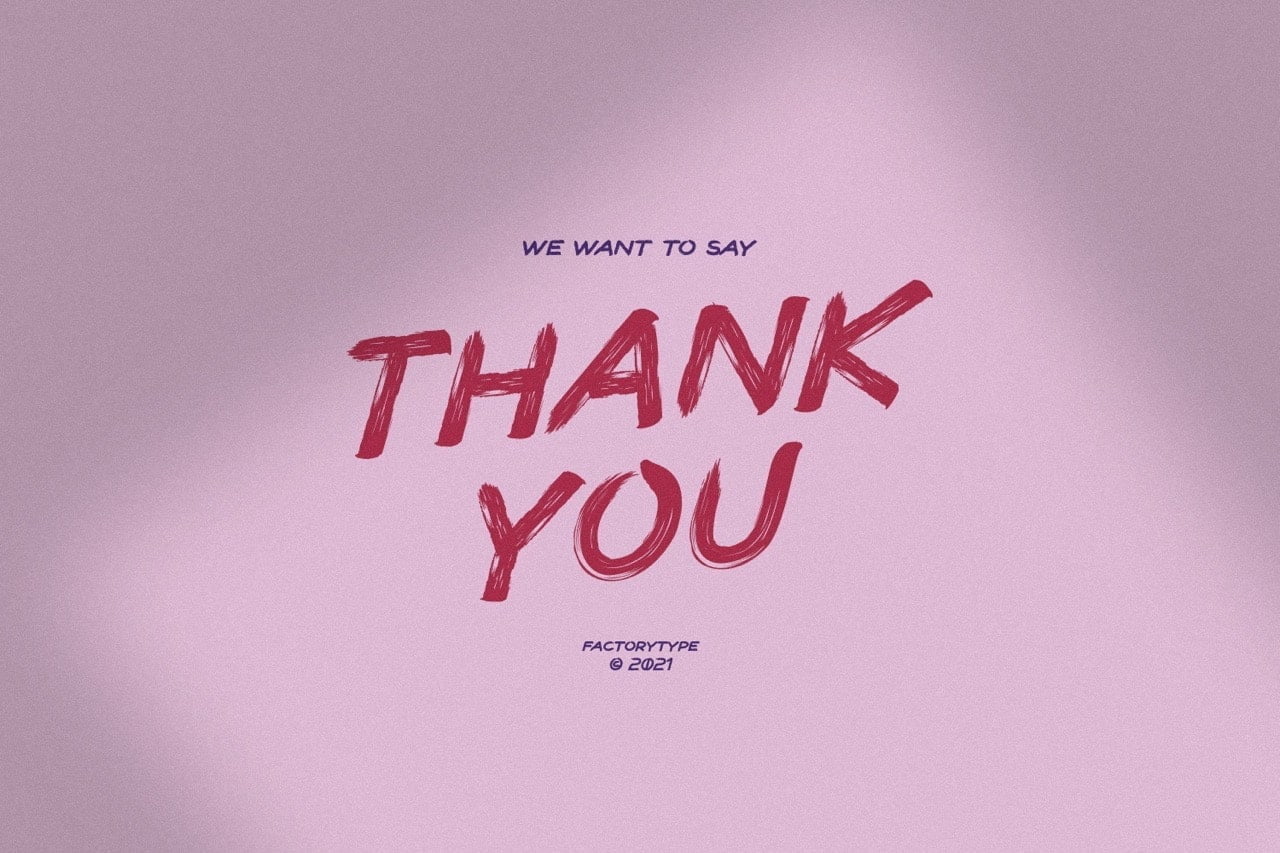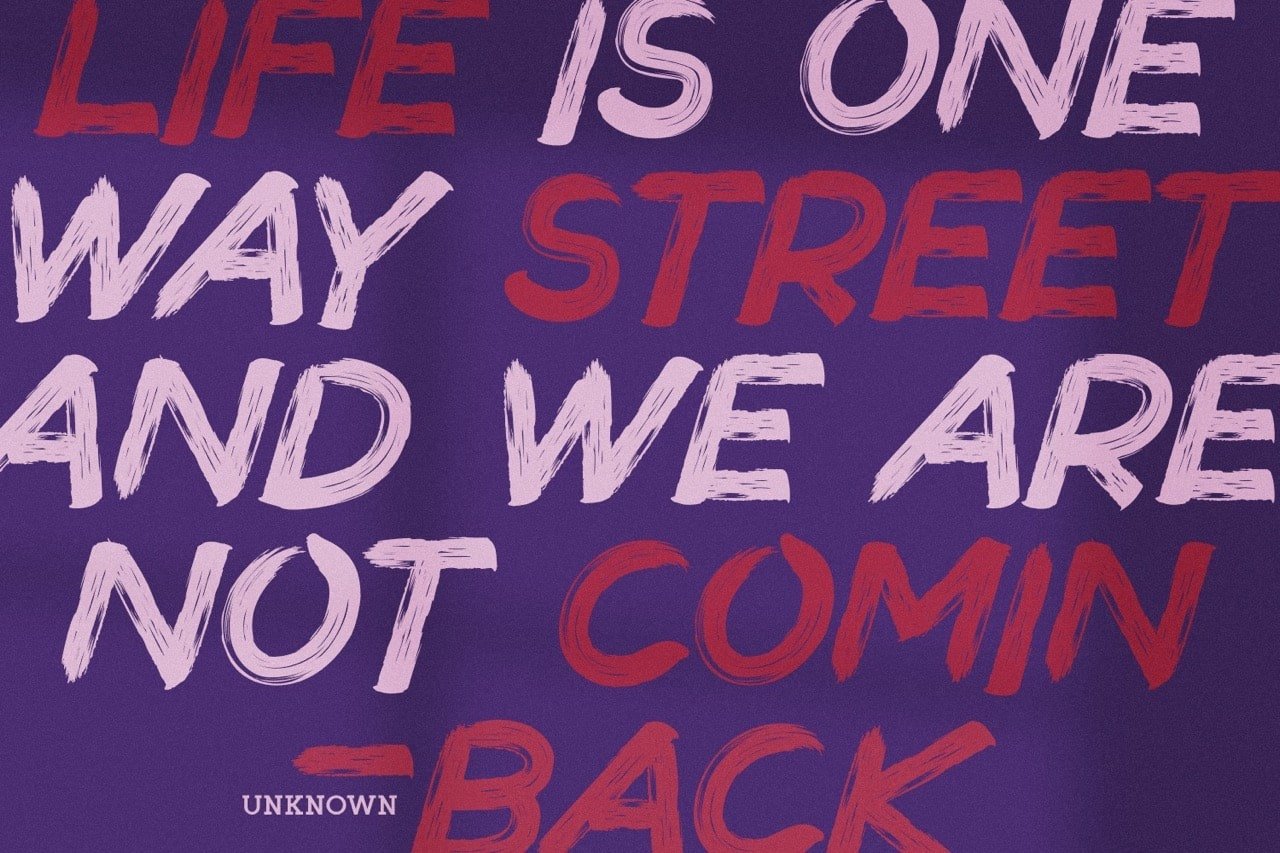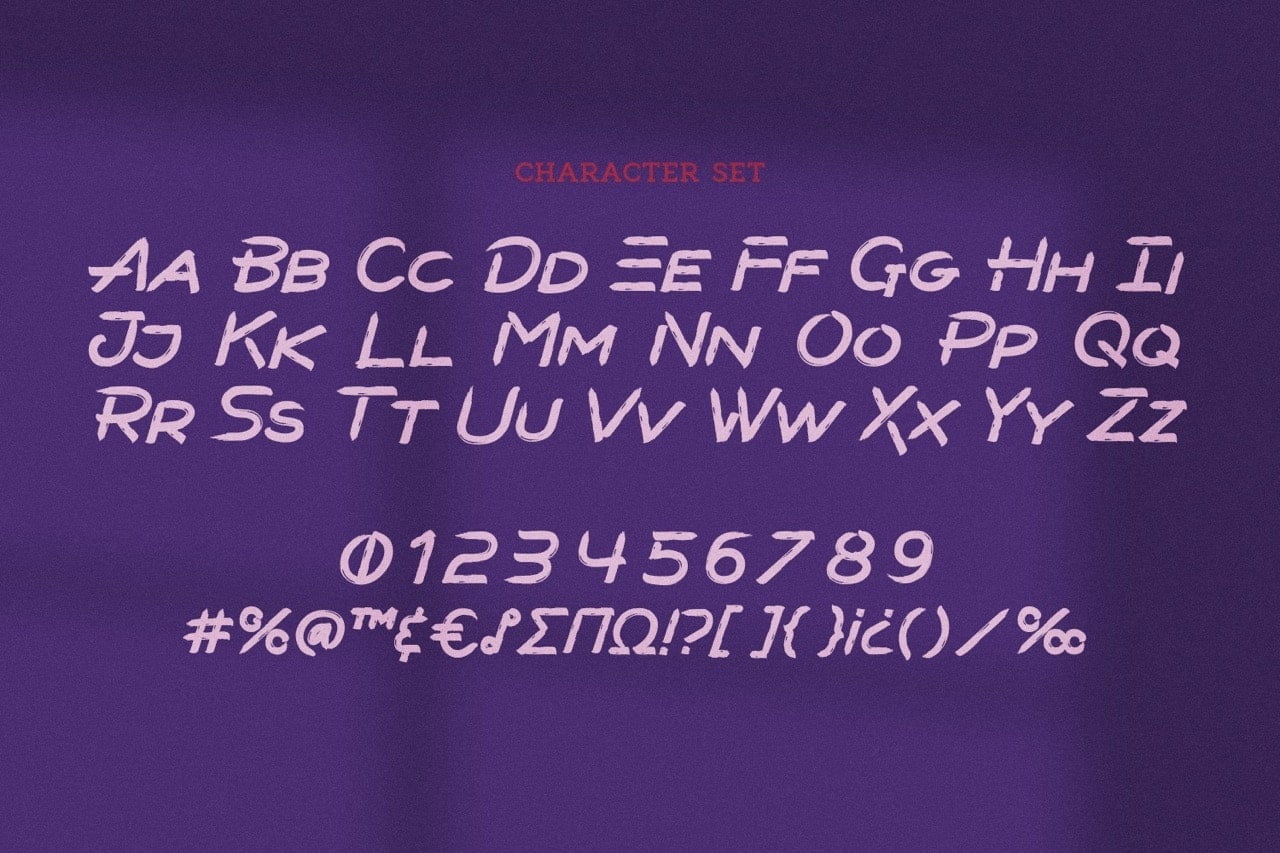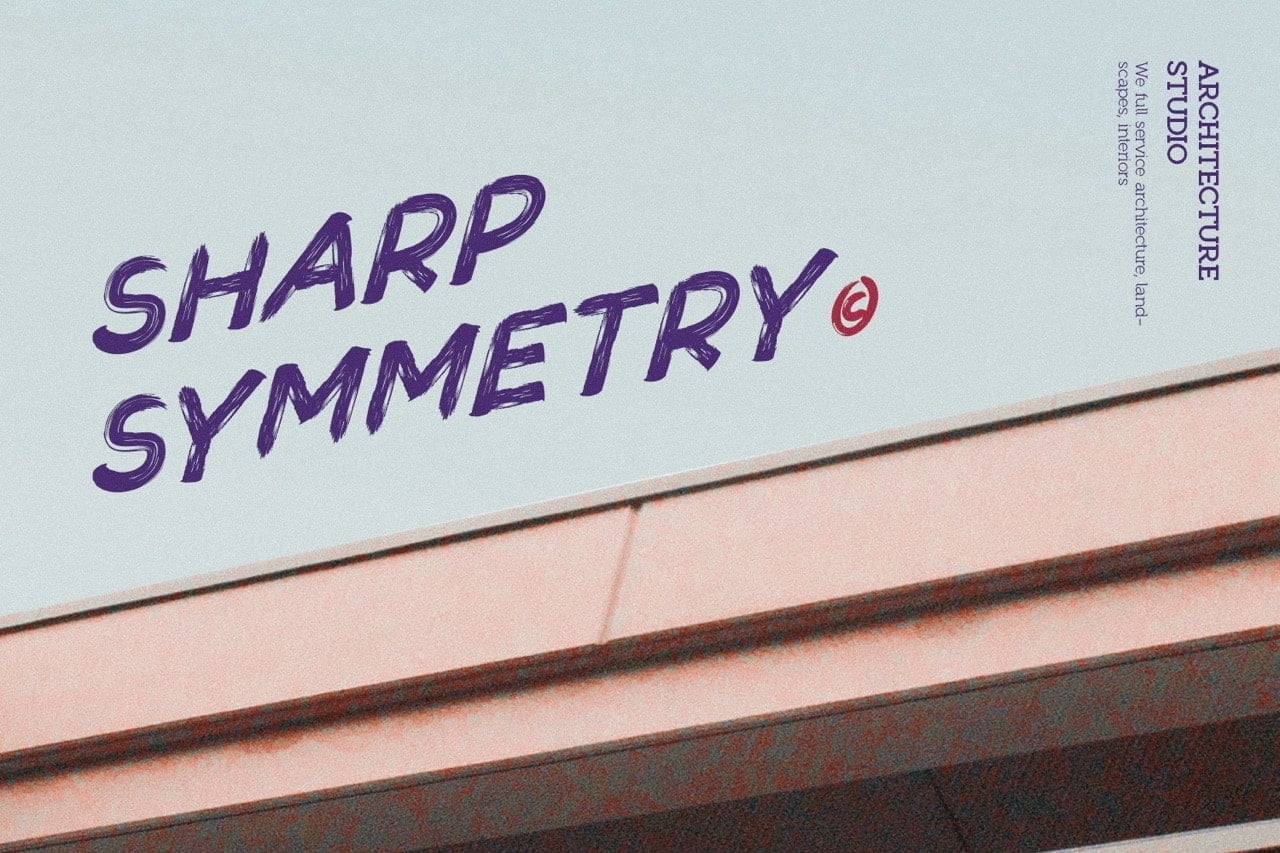
Punk Gibson is a bold and beautiful brush font that’s perfect for creating fresh custom work. This font has an extremely thick and dense appearance, making it ideal for sport and urban design applications such as posters, packaging, advertising, headlines, branding, signage, and whatever else comes to mind.
- Stylistic Ligatures and Alternate Glyphs
Punk Gibson Brush Font